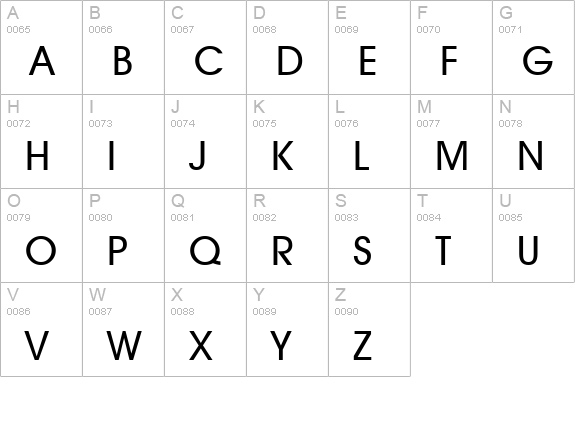
a_AvanteBs Font Details
Introducing the exquisite and versatile AvanteBs font, a true gem in the world of typography. This font boasts a perfect blend of elegance and modernity, making it ideal for a wide range of design projects. With its sleek lines and contemporary style, AvanteBs adds a touch of sophistication to any design. What sets AvanteBs apart is not just its stunning aesthetics, but also the fact that it is available for free. That's right, this premium font can be downloaded at no cost from FontsMarket.com. Whether you're working on branding, advertising, or any other creative endeavor, AvanteBs is sure to elevate your design to new heights. Embrace the beauty and functionality of AvanteBs font today and unlock endless possibilities for your projects. Download it for free and experience the power of premium typography at your fingertips.